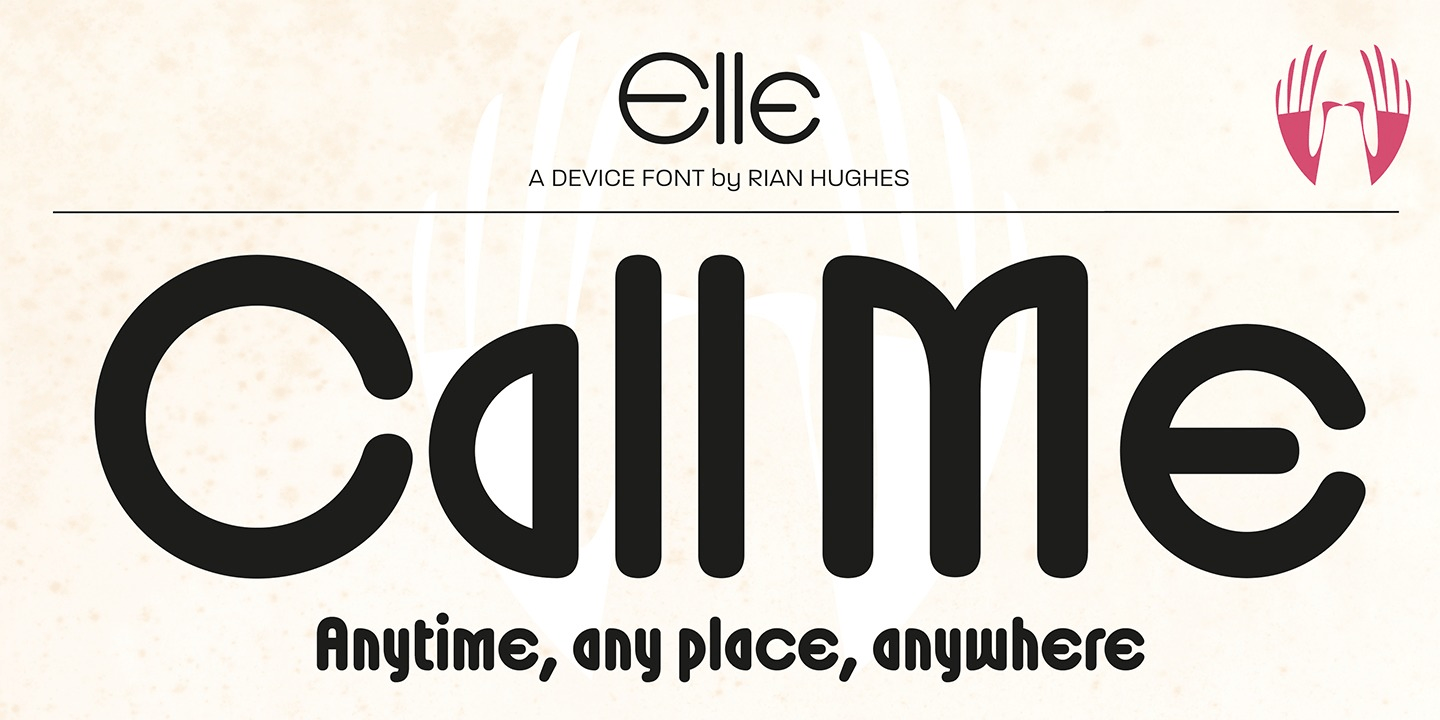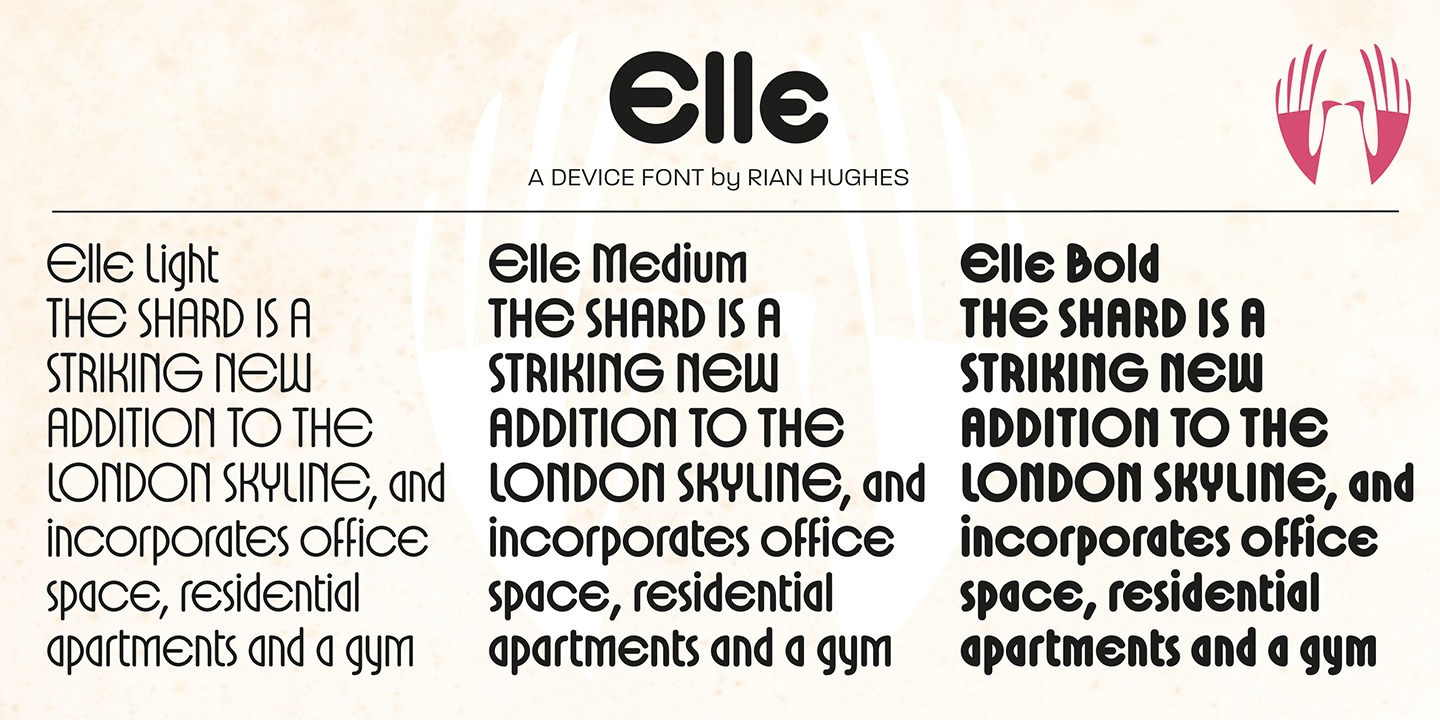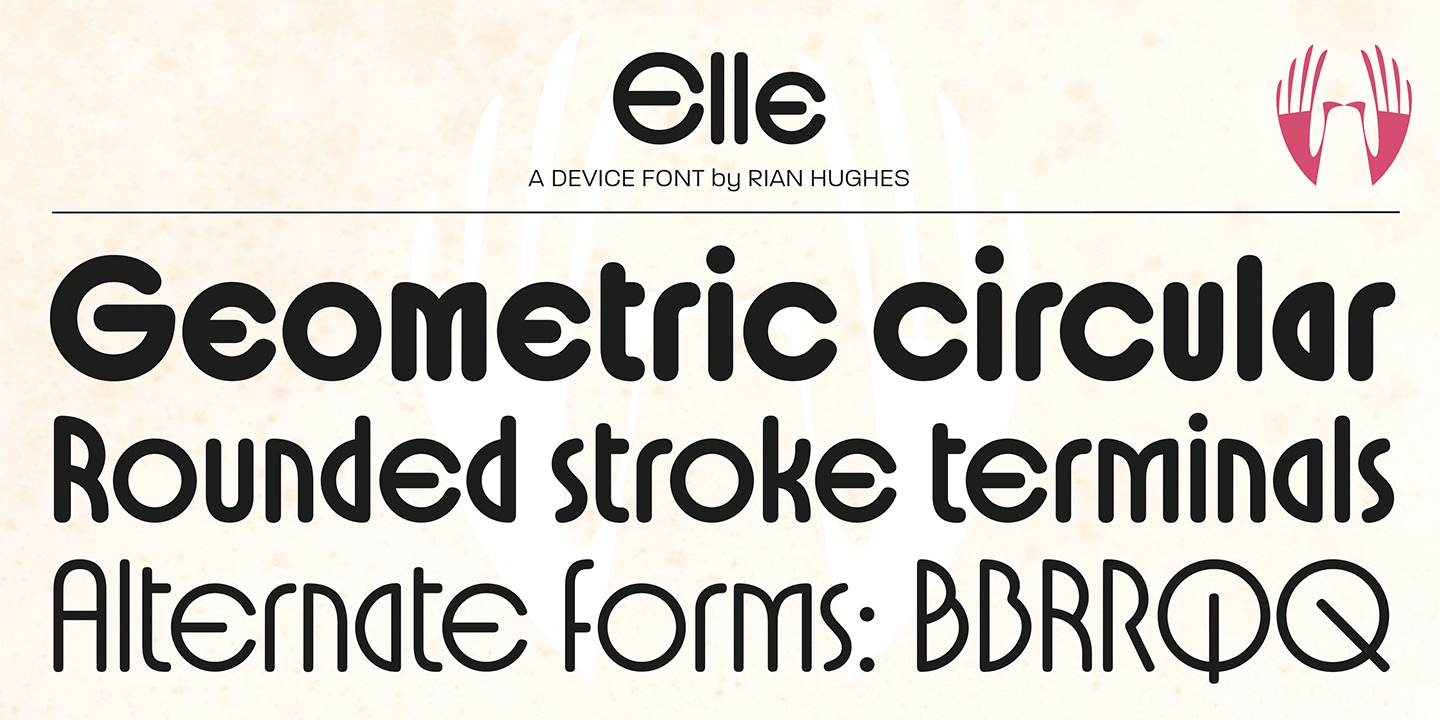
About Elle
Elle is a geometric sans in three weights with rounded stroke terminals and circular forms. Classy, elegant and modern, with just a hint of the future. Inspired by a single-weight Typositor headline typeface from the early 1970s called Pipeline.